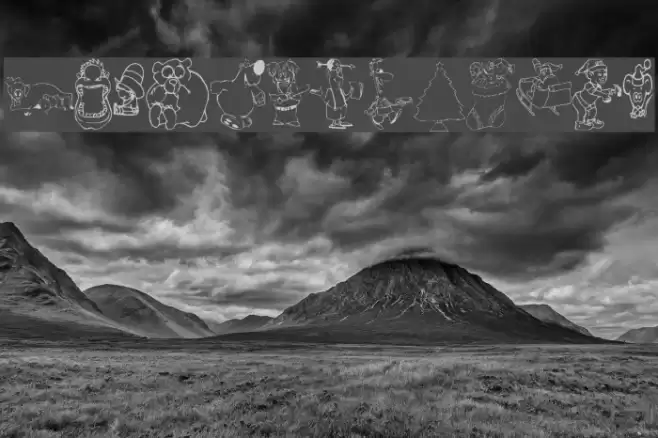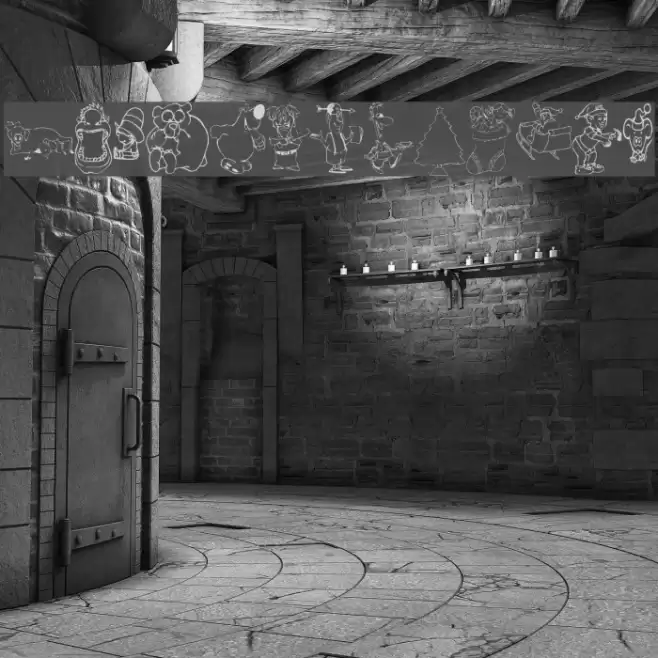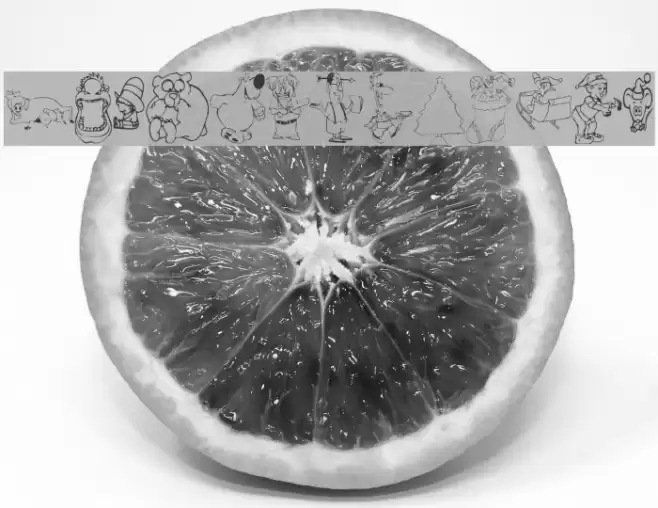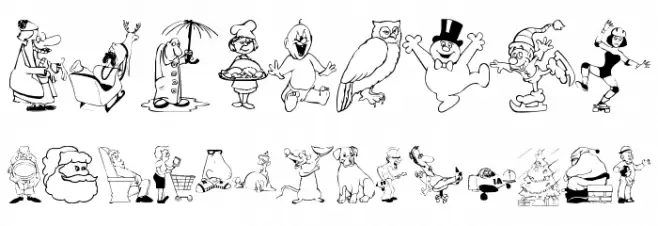
GlyphDigest Font
GlyphDigest Description
A playful and whimsical collection of hand-drawn cartoon glyphs, each representing a unique character or scene. The style is loose and sketchy, with exaggerated features and humorous expressions, emphasizing individuality and personality in each glyph.
Cartoonish, hand-drawn character glyphs with a humorous and whimsical style from Cartoon fonts.
- Proposed Projects: Children's books, comic strips, greeting cards, educational materials, playful branding, party invitations.
- Overall Style: Whimsical, Playful, Cartoonish
- Use Case: Decorative titles, illustrations, novelty projects, branding for kids' products.